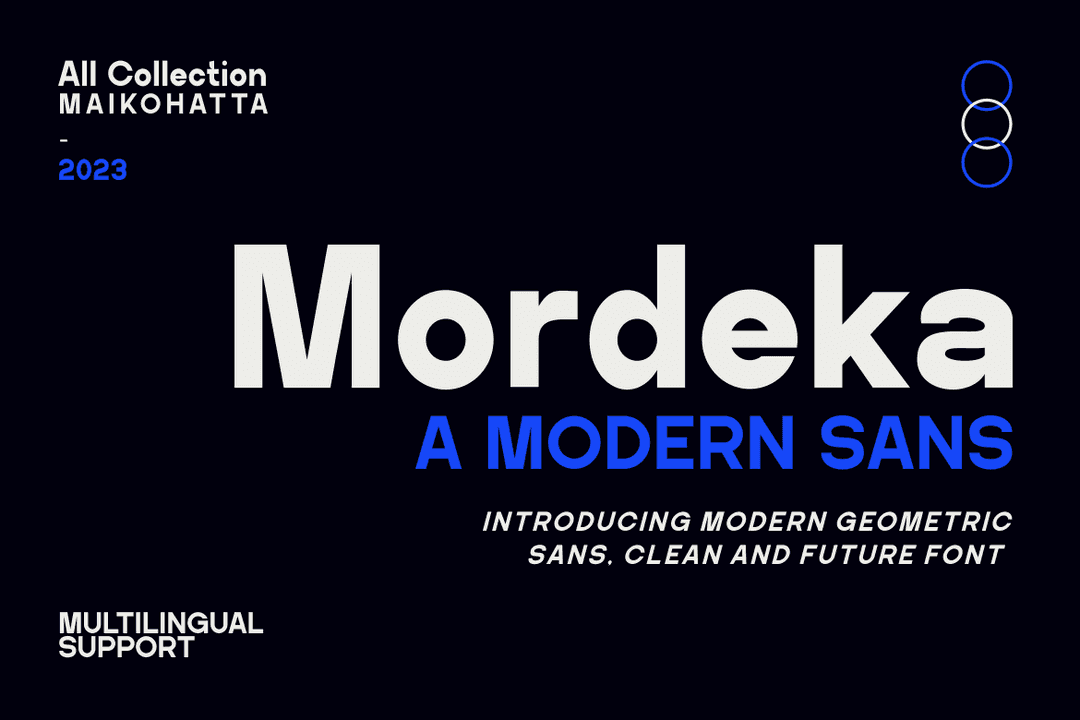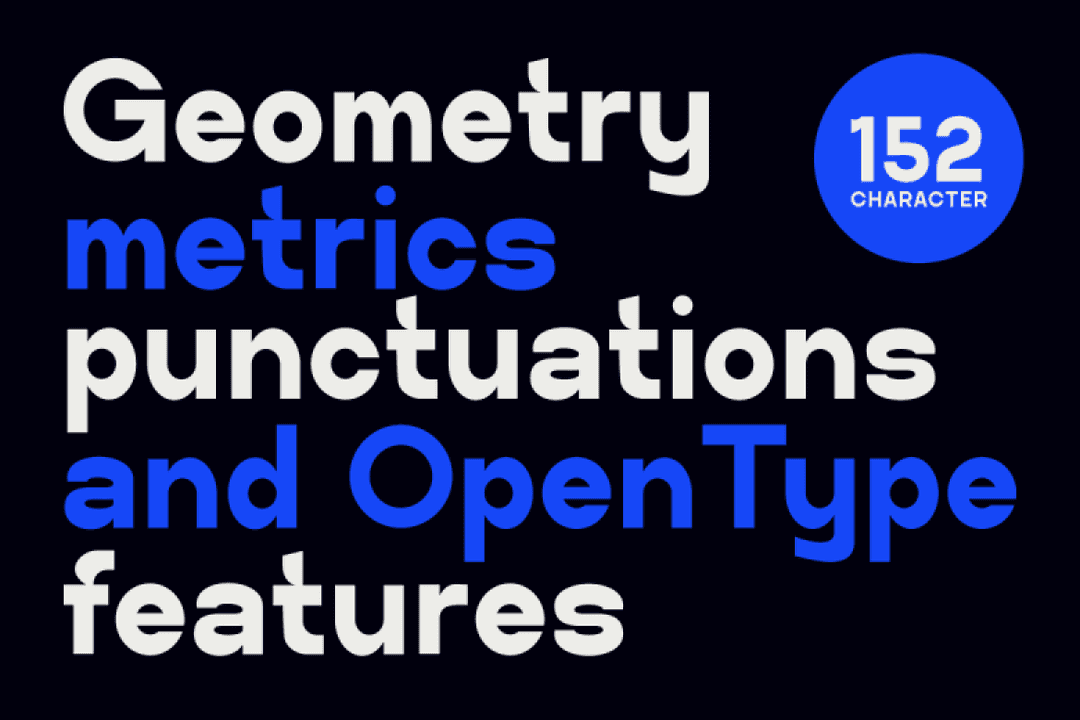
Mordeka is an assertive and bold sans serif font with its ability to provide elegant professional modern appearance and aesthetic simplicity, making this font suitable for use both graphic design and modern typography.